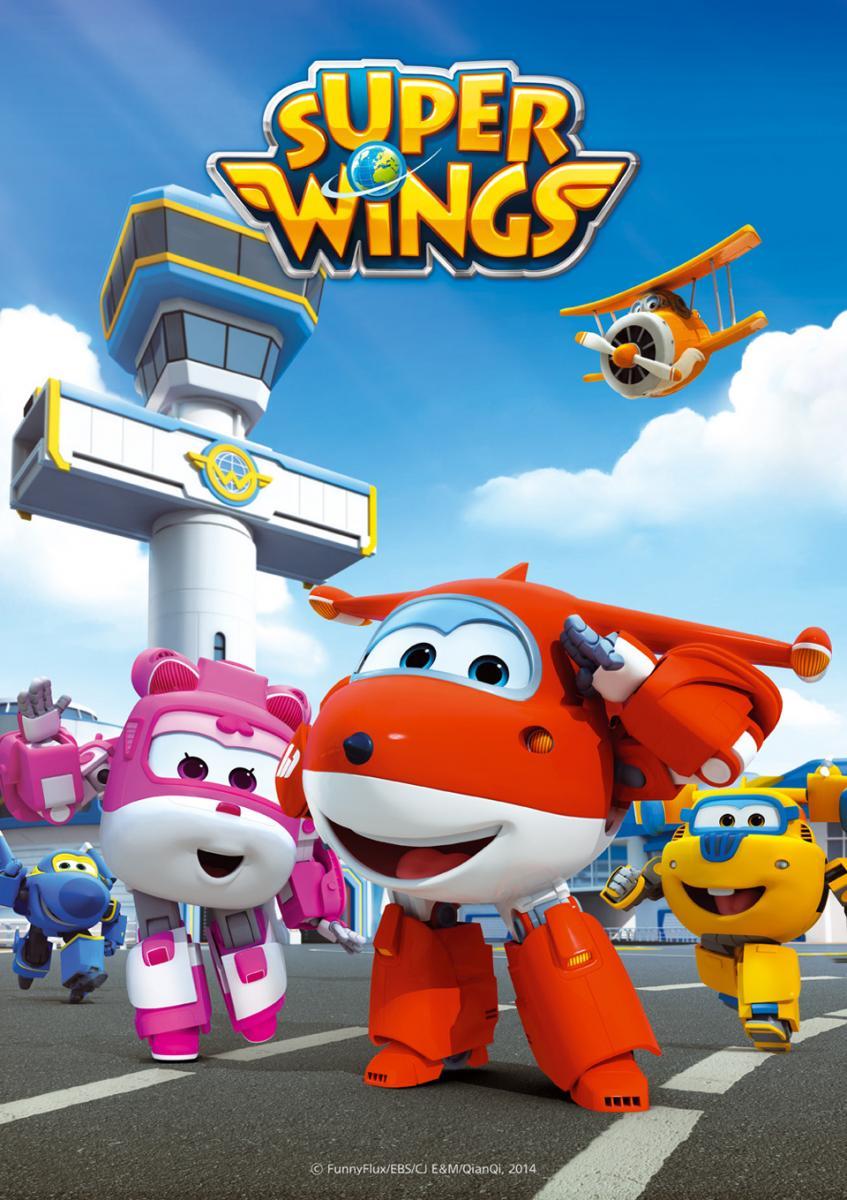
Super Wings Font
AdventureSuper Wings is a television series produced in South Korea by Gil Hoon Jung's FunnyFlux Entertainment. Super Wings follows the adventures of a group of planes with special abilities as they travel around the world to deliver packages to various locations.
The Super Wings series title is probably set in Lithos Black. Lithos is an uppercase-only sans serif typeface based on the Greek inscription style created by Carol Twombly and published by Adobe Systems in 1990.